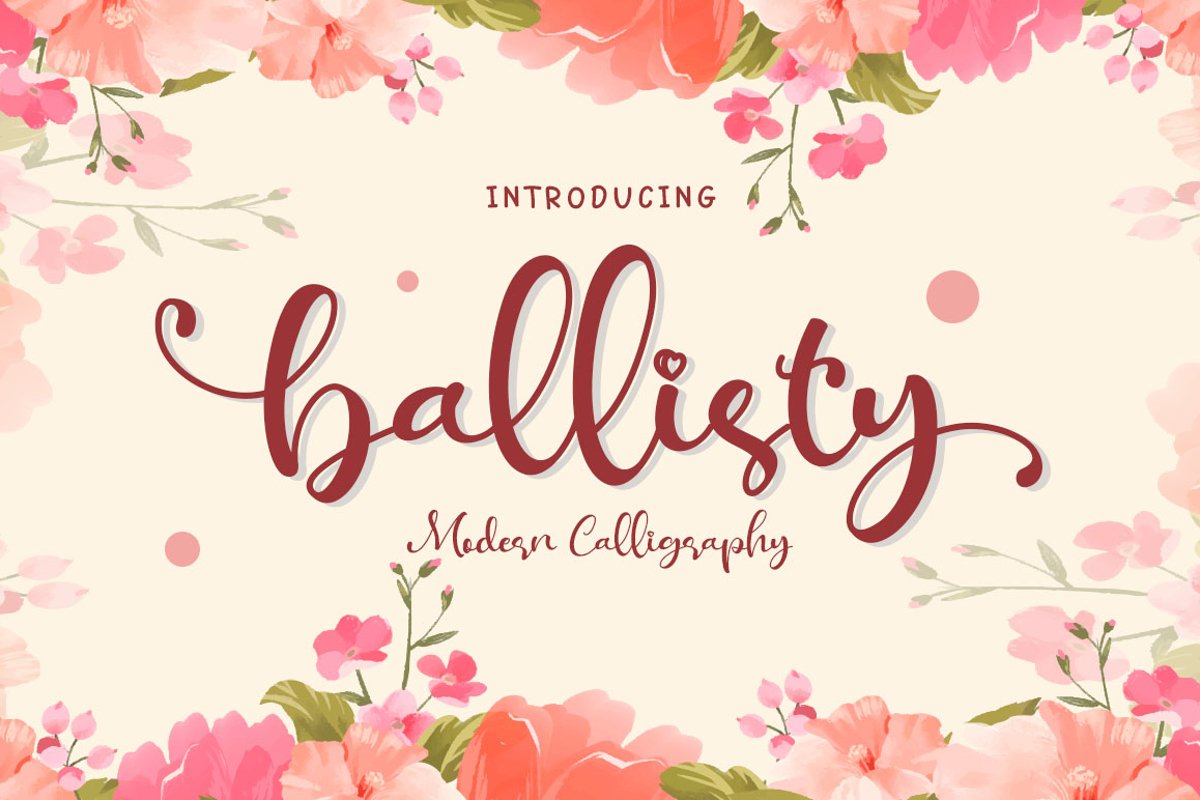
Ballisty Script
Ballisty
Ballisty is modern script calligraphy with beautiful Alternate character and ligature, suitable for your project such as,
wedding invitation, love poster, frame poster and many more that need beauty view on it